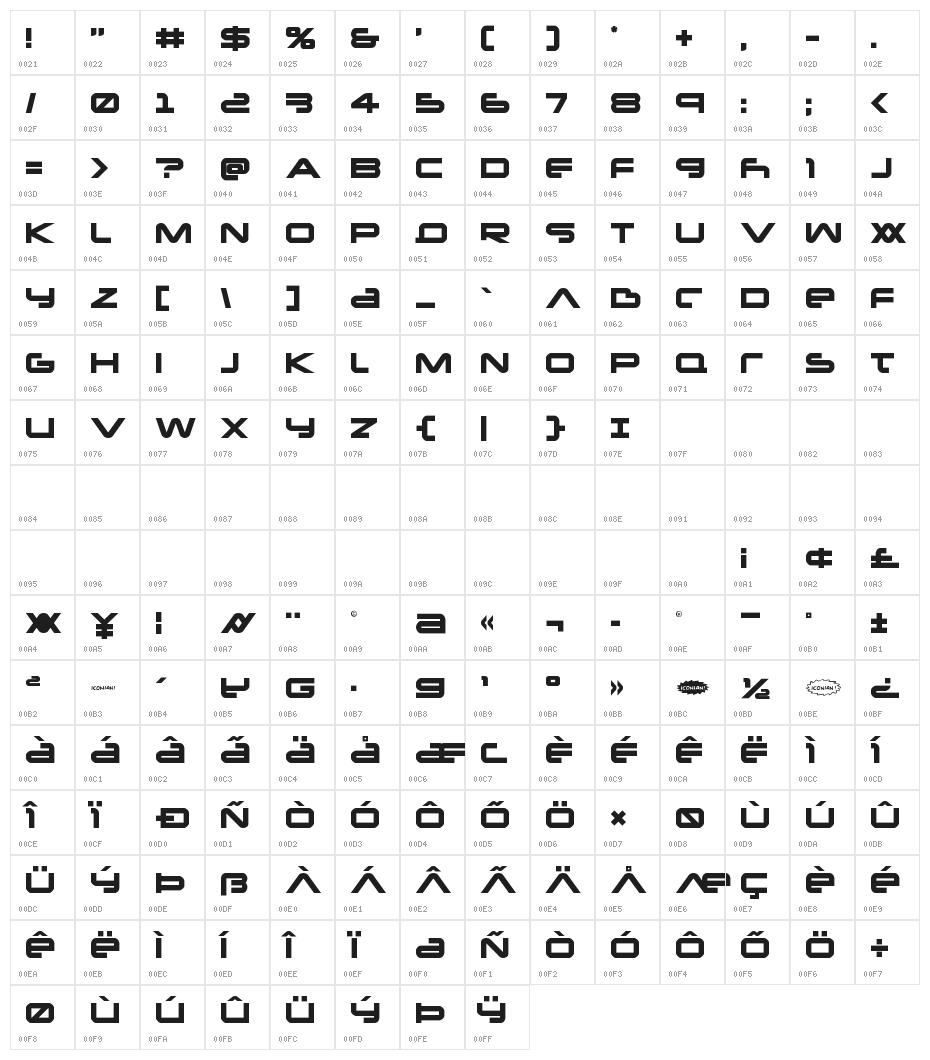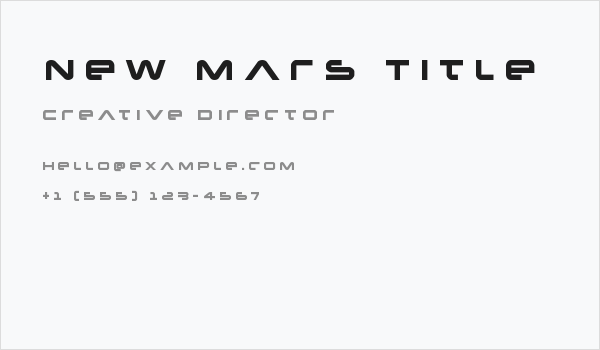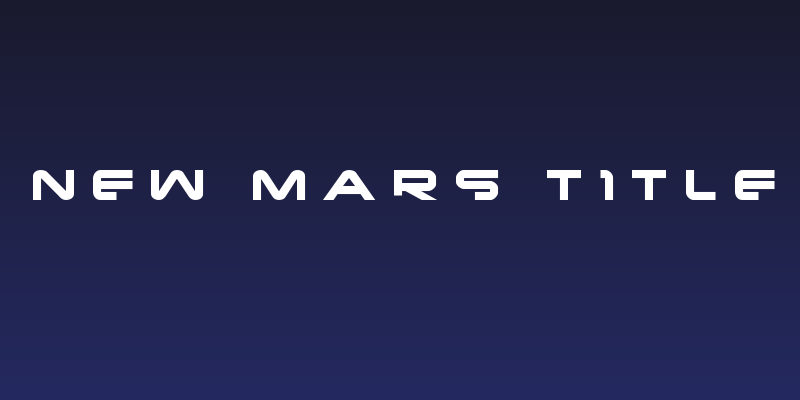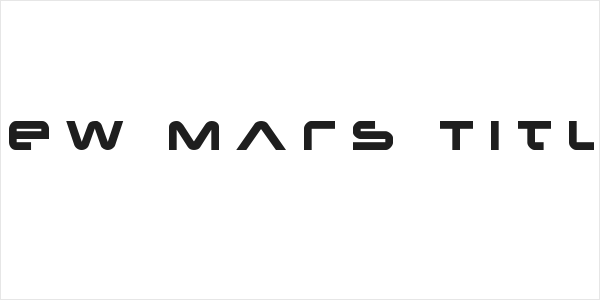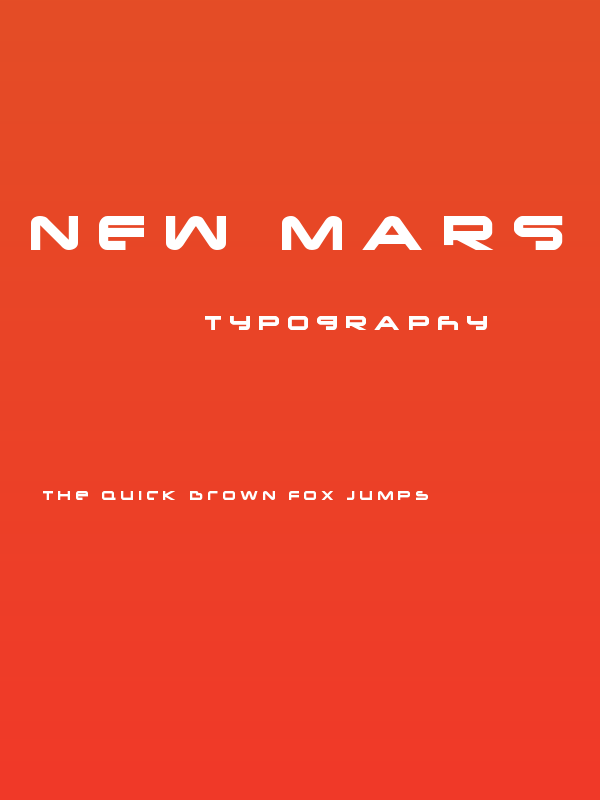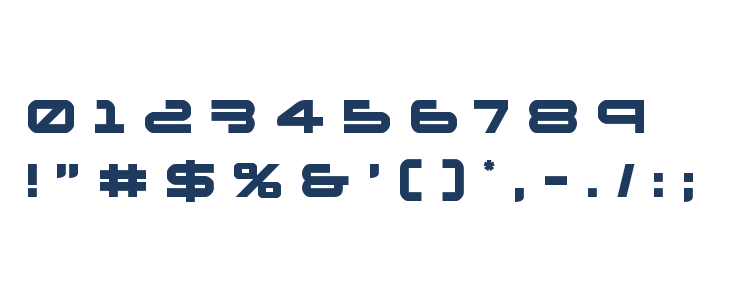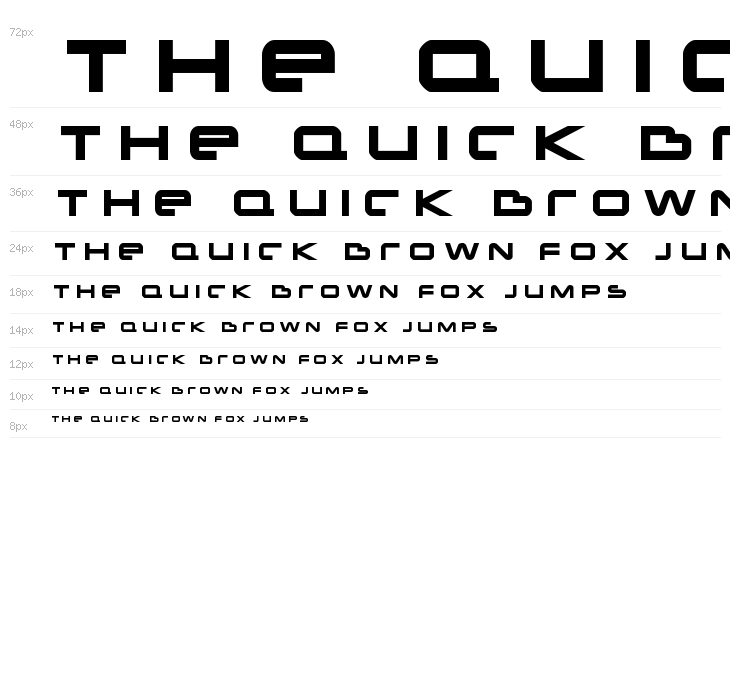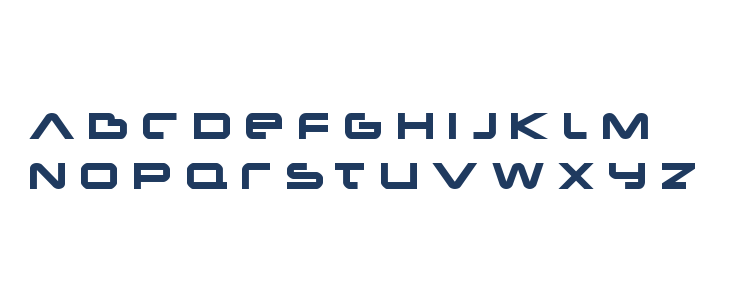
New Mars Title Font
New Mars Title Description
This font features a futuristic and geometric design, characterized by its bold and angular letterforms. The uppercase and lowercase letters share a consistent style, with sharp edges and a uniform thickness that gives it a modern and sleek appearance. The numerals and special characters maintain this aesthetic, ensuring a cohesive look across all glyphs. The font's design is reminiscent of sci-fi themes, making it ideal for projects that require a cutting-edge and technological feel.
| Proposed Projects | Ideal for sci-fi movie posters, tech company branding, video game interfaces, and futuristic-themed event invitations. |